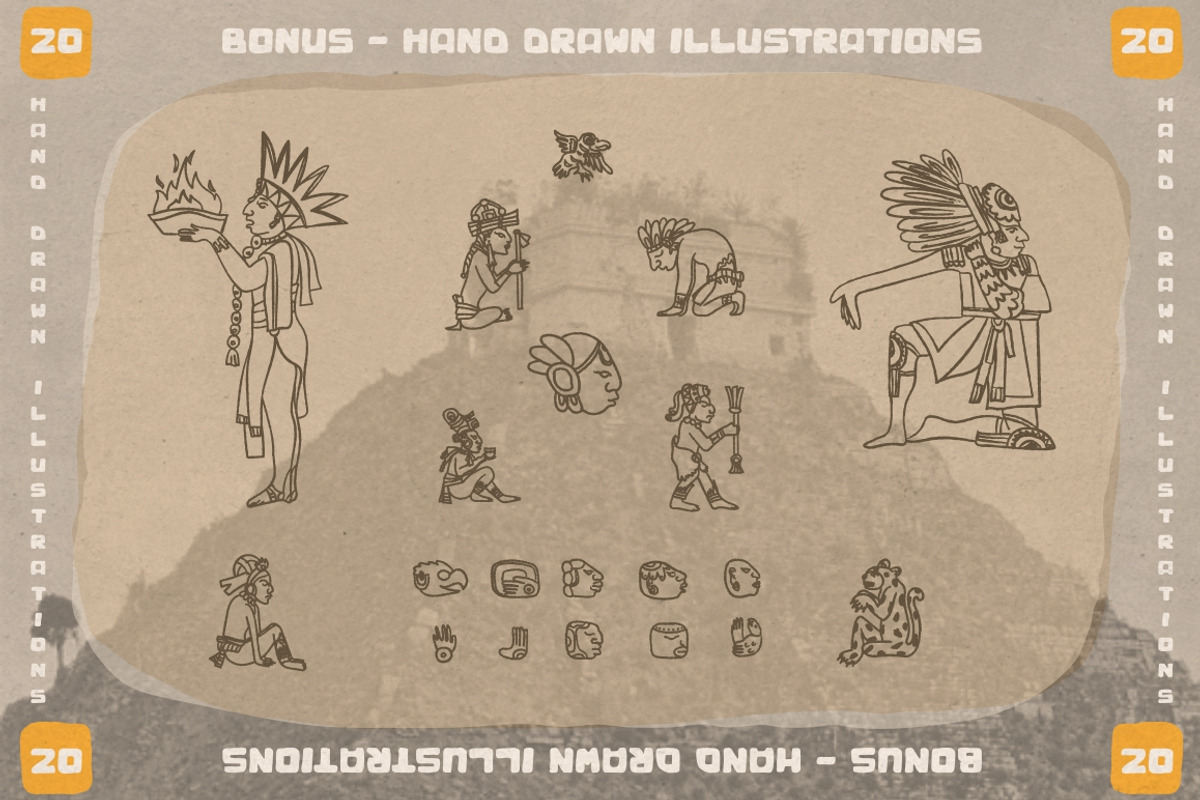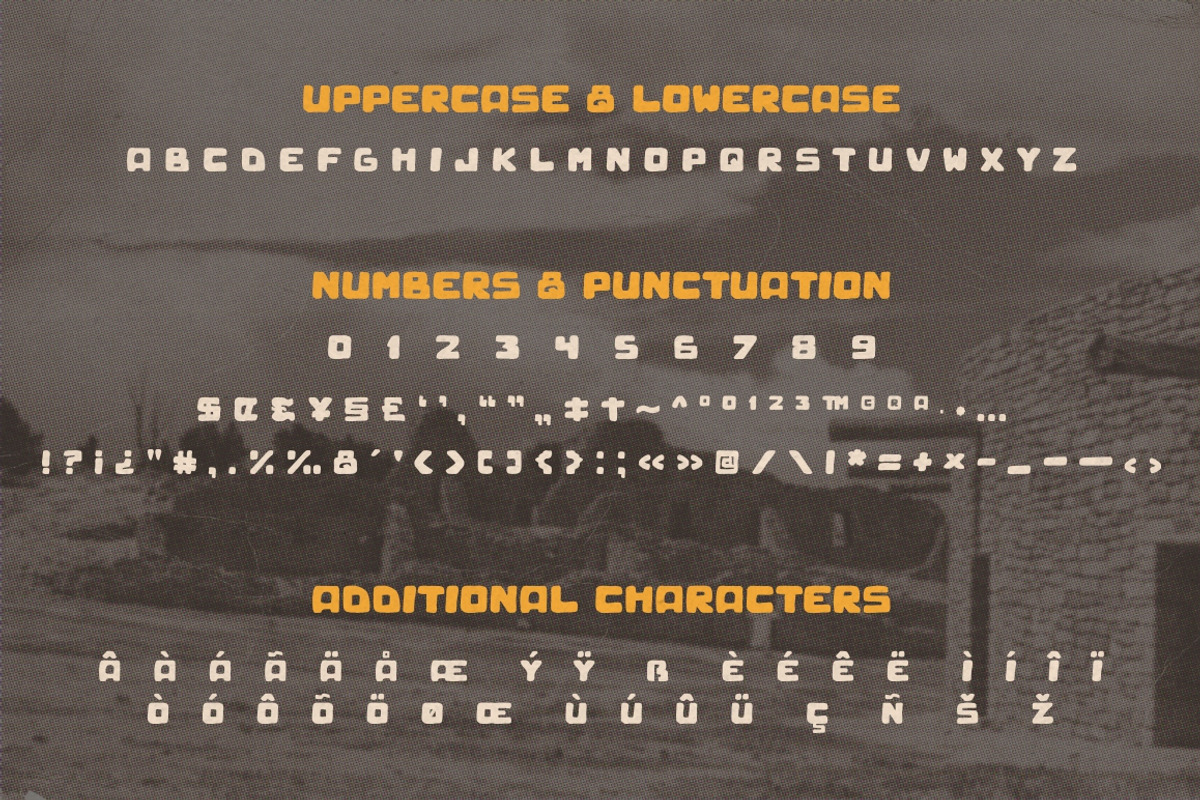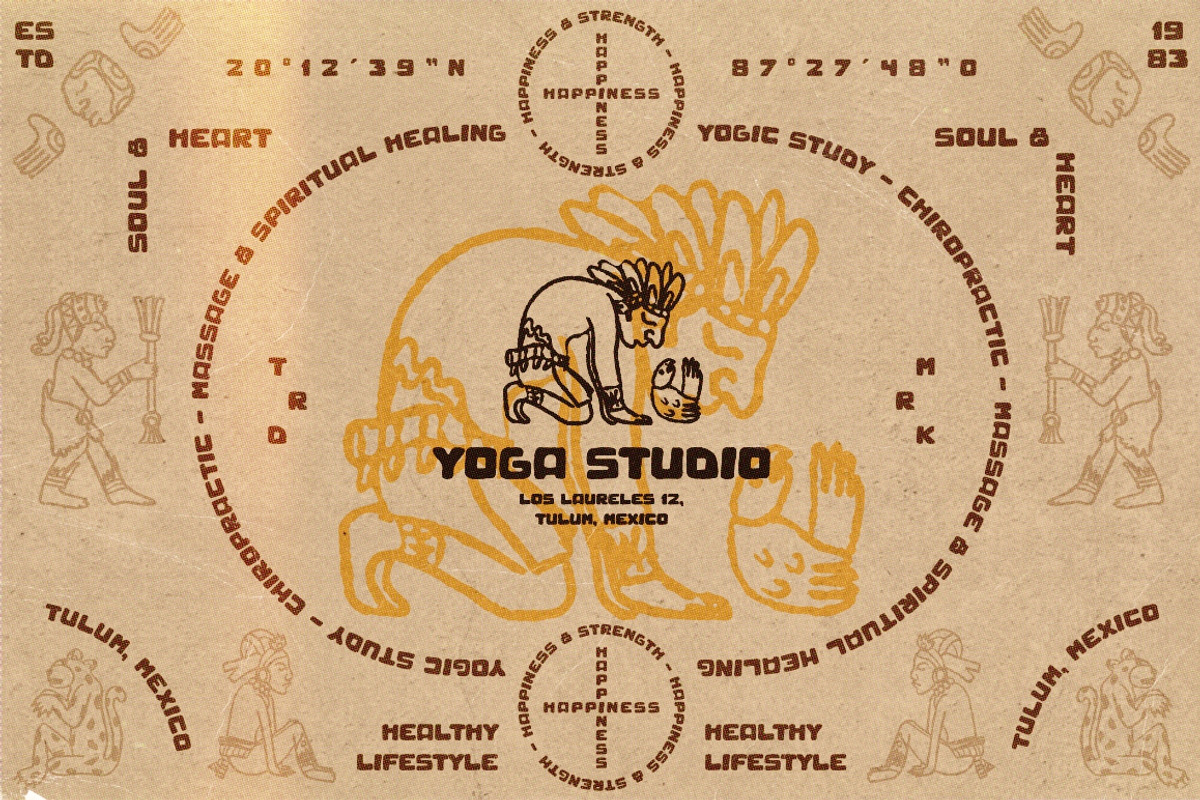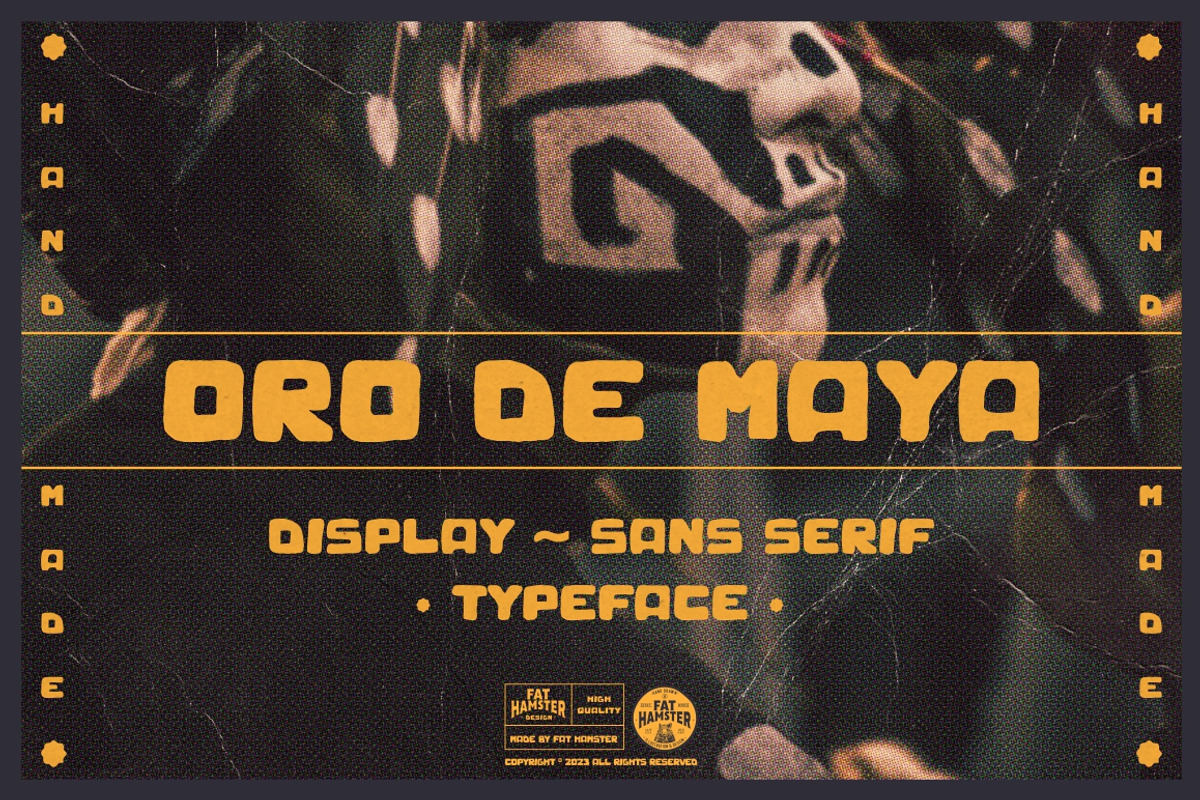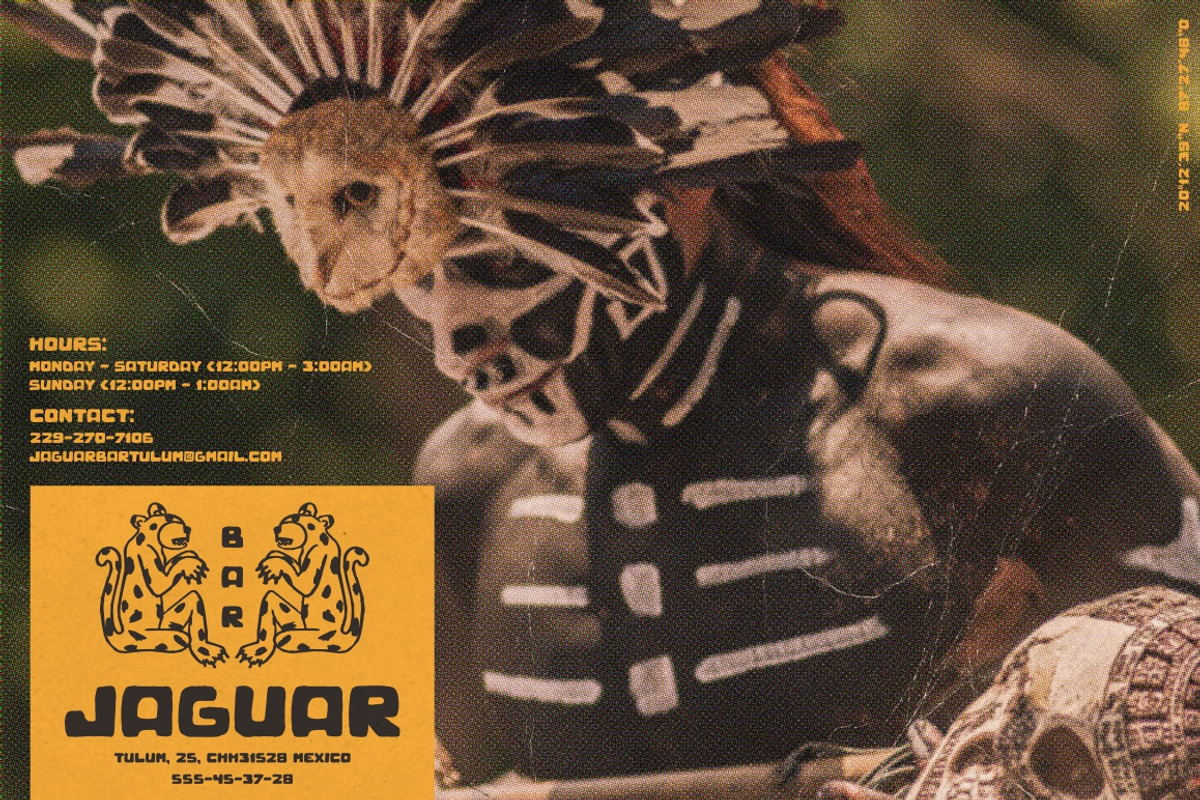
ORO de MAYA sans serif display font
Oro de Maya is a hand drawn ancient sans serif / display typeface. Oro de Maya font was inspired by the Maya civilization culture, their marvelous art, architecture and glyphs. This fantastic ancient font has a bold character. BONUS: 10 logo design templates and 20 hand drawn Maya illustrations.